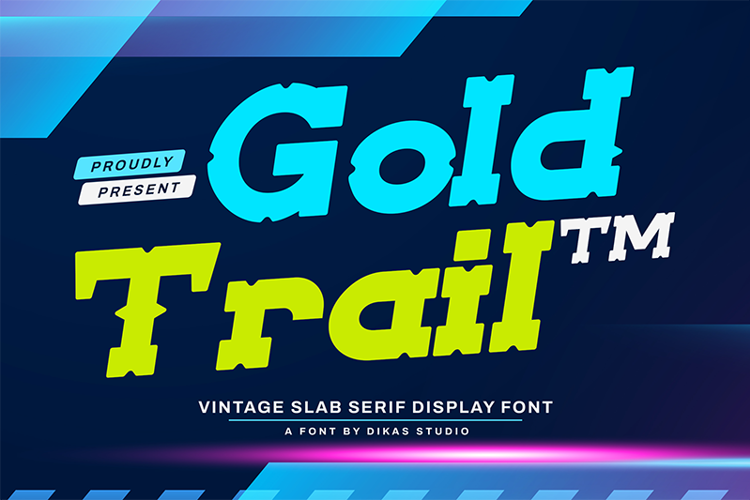
Gold Trail - Font
Goldtrail – Bold & Powerful Slab Serif Display Font
Goldtrail is a bold slab serif font built with strength, impact, and confidence in mind. Featuring thick, solid letterforms and sturdy slab-shaped serifs, Goldtrail delivers a commanding presence that demands attention in any design.
With its strong and powerful character, this typeface is perfect for logos, posters, headlines, advertising, sports branding, or anything that needs a bold visual punch. Whether you're creating a rugged brand or a statement-making display, Goldtrail offers clarity and style without compromise.